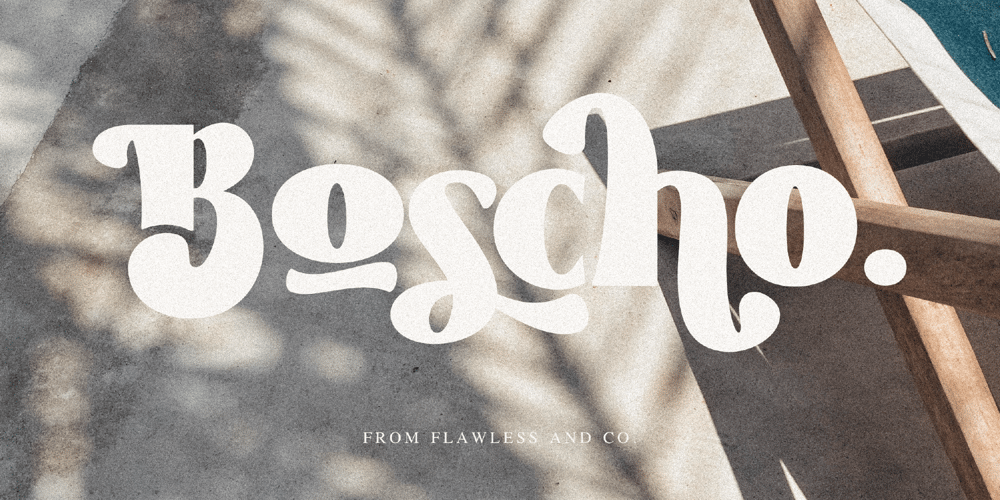
Boscho
Boscho font
Boscho Font Family was designed by Achmad Yani and published by Flawlessandco. Boscho contains 1 styles and family package options. Boscho – Modern Boho Retro Font introducing our new “Boscho” Modern Retro with Fun and Elegant Style is perfect for branding, logos, invitation, master heads, and more. Features : Multilingual Uppercase alphabet A-Z Lowercase alphabet a-z Alternate Character Numbers 0-9 Some punctuation NOTE: For all the characters are also available, accessible in the Adobe Illustrator Glyphs Panel, or in Adobe Photoshop Character Open Type Panel. If you need help, just write me! Thanks so much for checking out my shop ! HOW TO USE FONT : (connected letters, swirls, heart, swashes, diamond) for the first, install font file and open fontbook/character map, find the font and you can copy and paste the heart letters from fontbook/character map to your text. Thanks, Flawless and co.